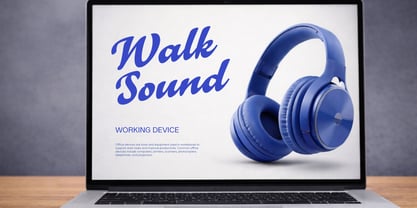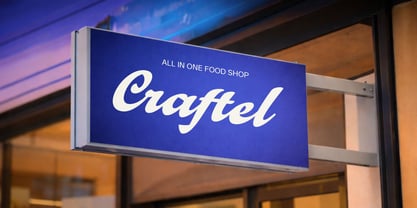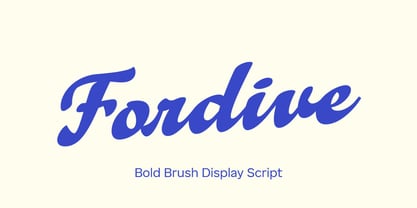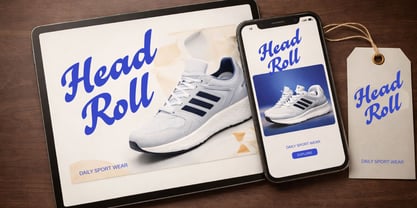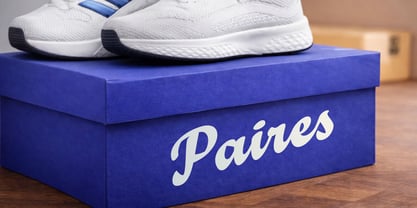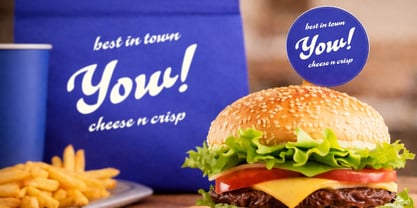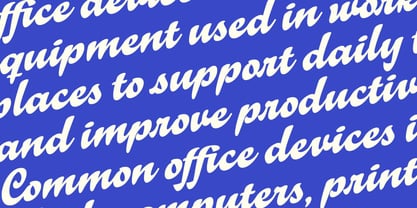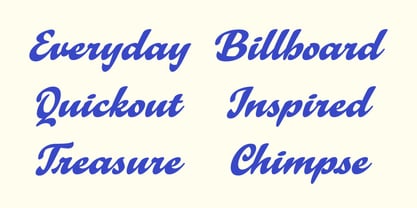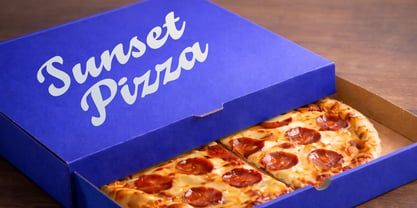
Fordive
The Fordive Font Family was designed by Biyono Ibrahim, Eko Slamet Bimantara and published by BeonType. Fordive contains 1 styles. More about this family
Fordive is a bold brush display script that captures the energy and charm of expressive hand-lettering. Designed with smooth flowing strokes and confident curves, this typeface delivers a strong visual presence while maintaining a friendly and approachable feel. Its thick brush structure and dynamic rhythm make it ideal for branding, packaging, posters, headlines, and logo design. Fordive brings a modern handcrafted touch that works beautifully in food brands, lifestyle products, and creative projects that need a bold yet stylish typographic voice.